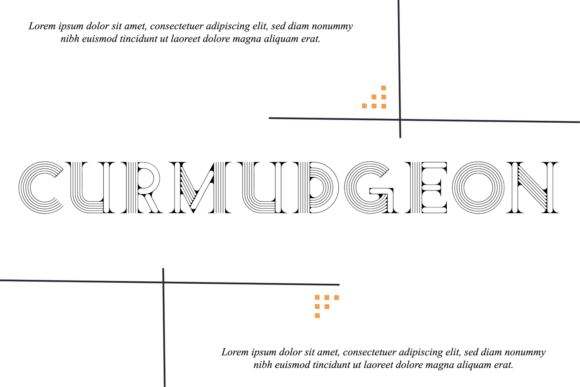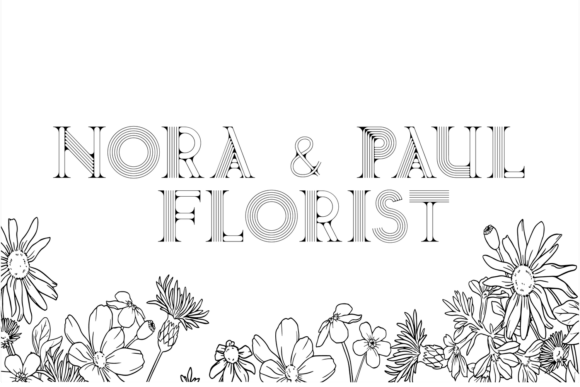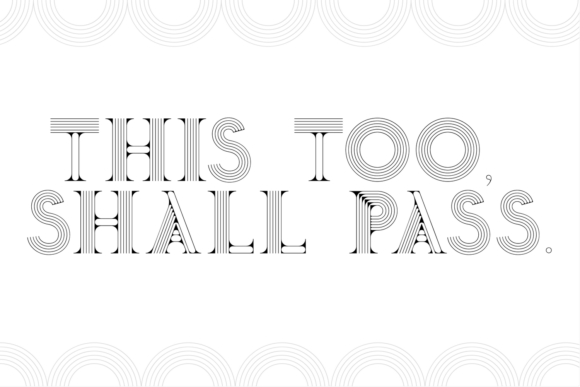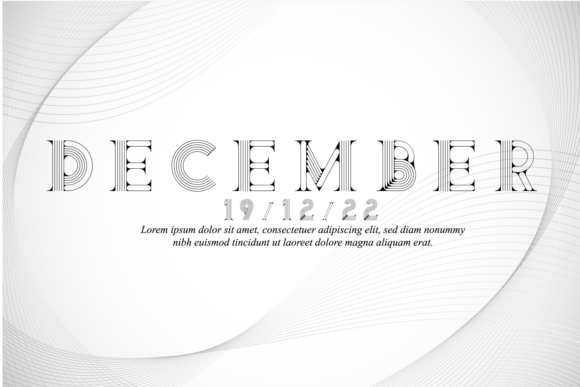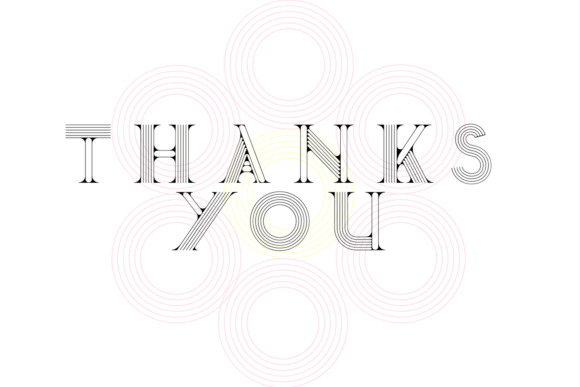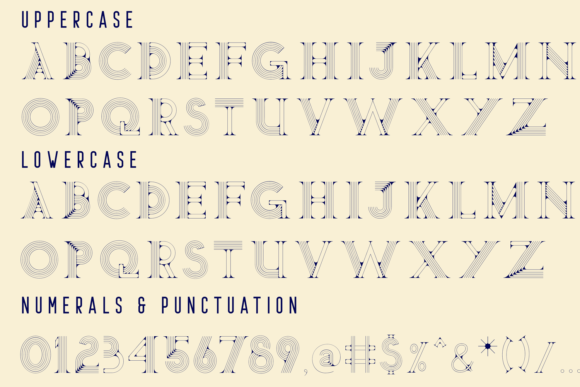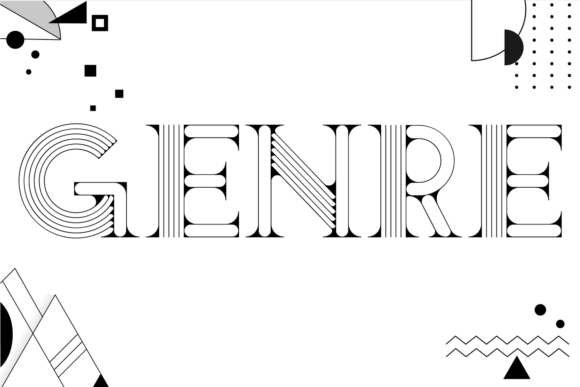
Discover the Unique Charm of Genre Line Font: A Perfect Blend of Art Deco and Tribal Aesthetics
In the world of typography, fonts play a crucial role in defining the visual identity of a brand or product. For designers and crafters looking for a unique and stylish font to elevate their branding and packaging, Genre Line Font is an excellent choice. Inspired by the art deco style and tribal aesthetics, this minimalistic and thin font is perfect for creating stunning logos, monograms, and typographic designs.
The Inspiration Behind Genre Line Font
Genre Line Font draws its inspiration from the art deco style, which emerged in the 1920s and is characterized by its use of geometric shapes, metallic materials, and ornate decorations. The font’s creator aimed to capture the essence of art deco’s modernity and sophistication while infusing it with the simplicity and elegance of tribal aesthetics. The result is a font that exudes a sense of refinement and cultural richness.
Key Features of Genre Line Font
Genre Line Font boasts several key features that make it an attractive choice for designers and crafters:
- Minimalistic and Thin: The font’s slender lines and minimalist design make it perfect for creating clean and sophisticated logos, labels, and typographic designs.
- Geometric Patterns: Genre Line Font is decorated with geometric patterns that add a touch of tribal flair, making it ideal for craft products branding and packaging.
- Versatile: The font’s versatility allows it to be used across various industries, including craft products, tourism, surface design, music, and typographic posters.
Use Cases for Genre Line Font
Genre Line Font is suitable for a wide range of applications, including:
- Craft Products Branding and Packaging: The font’s unique blend of art deco and tribal aesthetics makes it perfect for branding and packaging craft products, such as needlework, minimal clothing, and organic food.
- Tourism Products: Genre Line Font’s sophisticated and elegant design makes it an excellent choice for tourism-related branding and marketing materials.
- Surface Design: The font’s geometric patterns and minimalist design make it ideal for surface design applications, such as textiles, wallpaper, and ceramics.
- Music Albums: Genre Line Font’s stylish and modern design makes it a great choice for music album covers and promotional materials.
- Typographic Posters: The font’s bold and elegant design makes it perfect for creating stunning typographic posters.
Creating Logos and Monograms with Genre Line Font
One of the unique features of Genre Line Font is its ability to create stunning logos and monograms using individual letters and symbols. This feature allows designers and crafters to create custom logos and monograms that reflect their brand’s personality and style.
To create a logo or monogram with Genre Line Font, simply use the font’s individual letters and symbols to craft a unique design. You can experiment with different combinations of letters and symbols to create a logo that perfectly represents your brand.
Genre Line Font is a unique and stylish font that offers a perfect blend of art deco and tribal aesthetics. Its minimalistic and thin design, geometric patterns, and versatility make it an excellent choice for designers and crafters looking to elevate their branding and packaging. With its wide range of use cases and ability to create custom logos and monograms, Genre Line Font is a valuable addition to any designer’s font library.